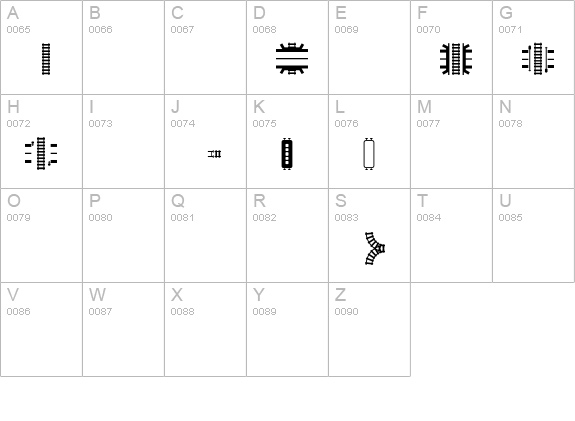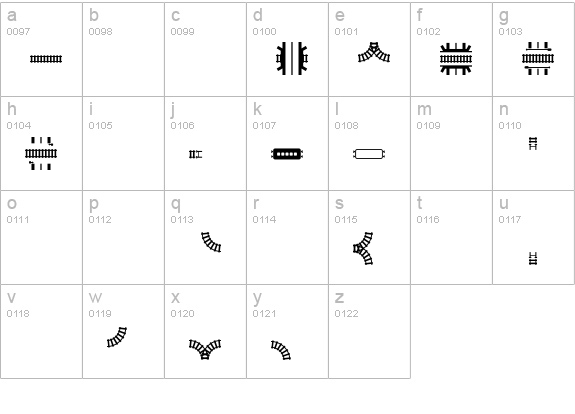
A44-trains Font Details
A44-Trains font is a modern and versatile typeface that exudes a sense of energy and movement. Inspired by the sleek and dynamic design of trains, this font is perfect for projects that require a touch of sophistication and innovation. With its clean lines and bold strokes, A44-Trains font commands attention and makes a statement. This font is suitable for a wide range of design applications, from branding and advertising to packaging and web design. Whether you're creating a poster for a high-speed rail service or designing a logo for a transportation company, A44-Trains font will help you achieve a professional and polished look. Best of all, A44-Trains font is available for free download at FontsMarket.com. So why wait? Add this unique and eye-catching font to your collection today and take your designs to the next level.